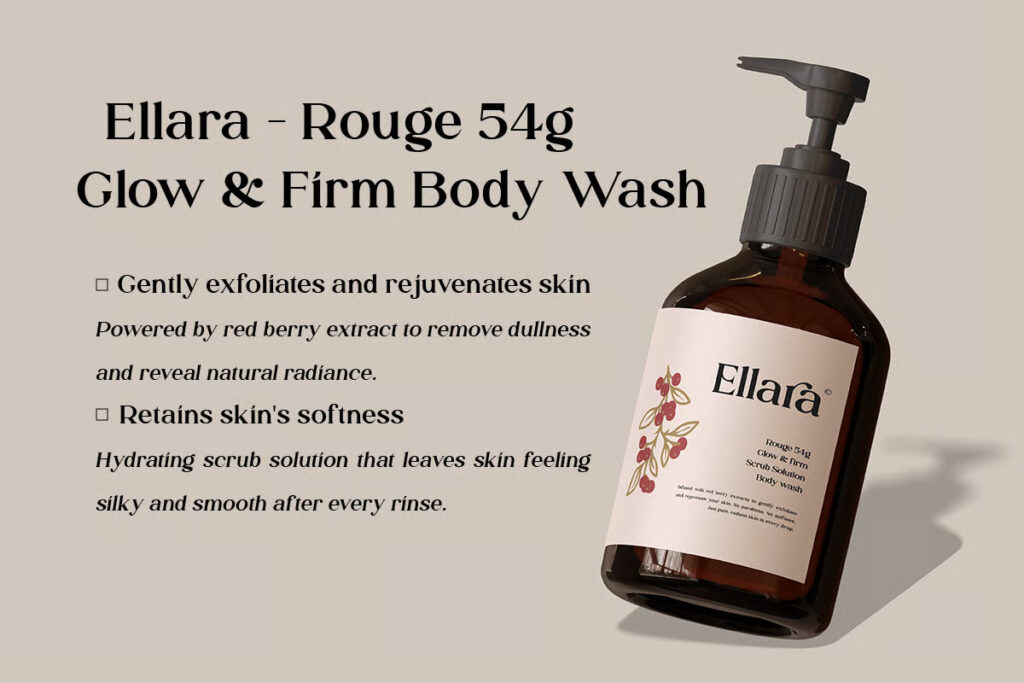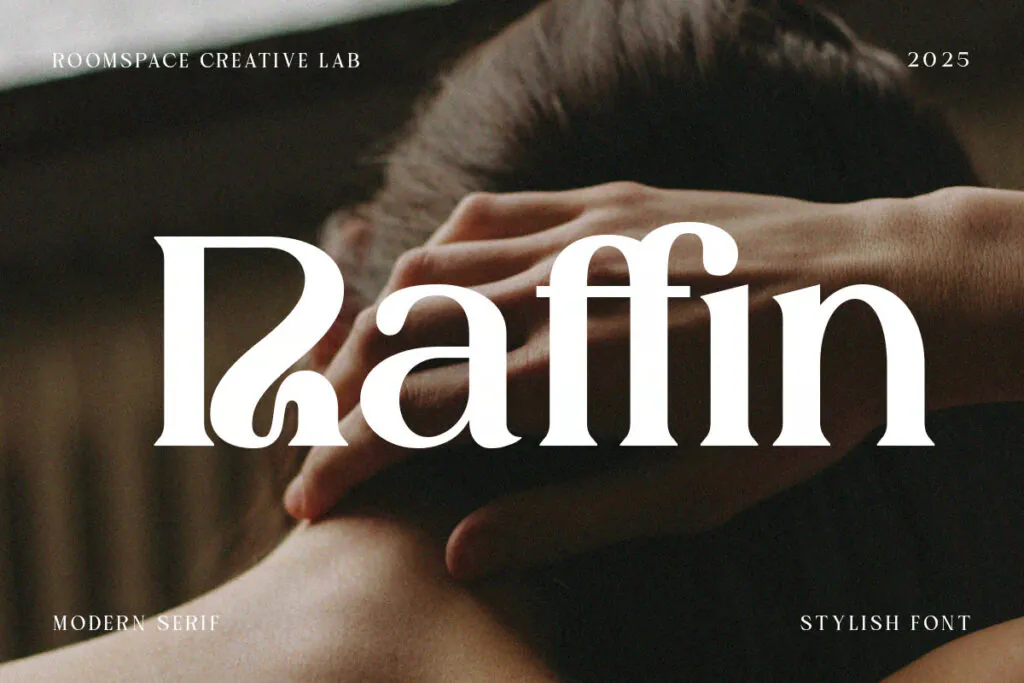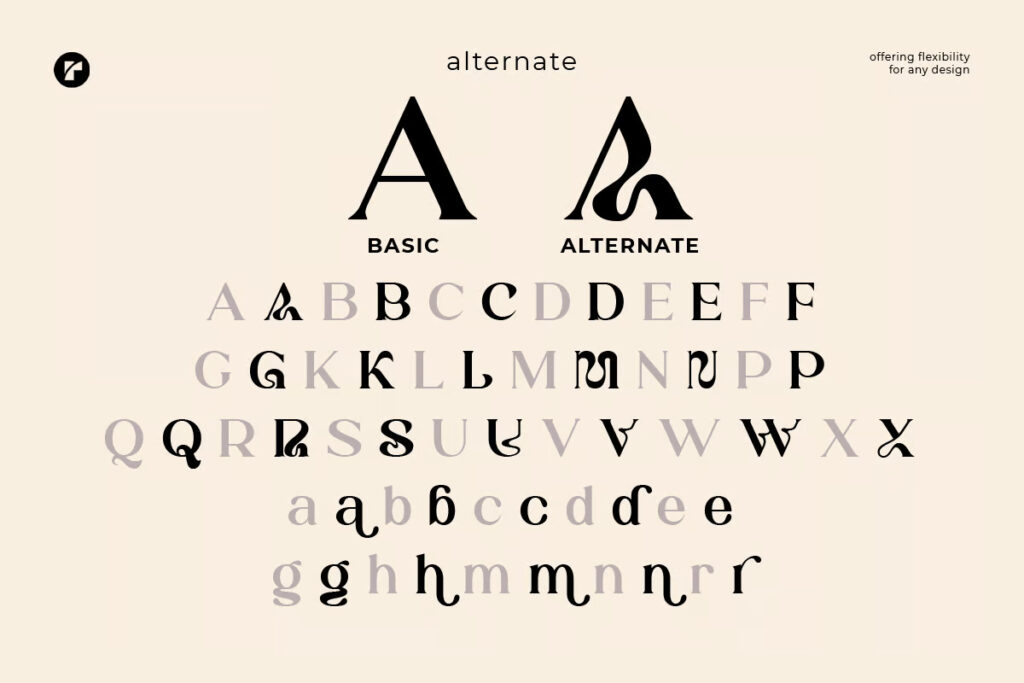
Raffin is a refined modern serif font that masterfully blends sculptural elegance with clarity and versatility. Designed for creatives and brands that want to project sophistication without losing approachability, Raffin strikes a graceful balance—strong yet soft, poised yet inviting. Its confident character is shaped by high-contrast vertical strokes and subtly tapered curves, creating a visual rhythm that feels both timeless and contemporary.
The font’s slightly condensed structure and sculpted terminals lend it a polished editorial presence. While it draws inspiration from classic serif traditions, its modern cutaways and intentional quirks breathe new life into each letterform. Raffin adapts effortlessly across aesthetics—from minimalist luxury to relaxed, lifestyle branding—making it ideal for high-end fashion, skincare, boutique identities, editorials, and artisanal product packaging.
Whether featured on a product label, in a magazine spread, or as the hero font on a website, Raffin brings hierarchy, harmony, and refinement to any design. It’s expressive without being loud—perfect for elegant, detail-oriented design systems.